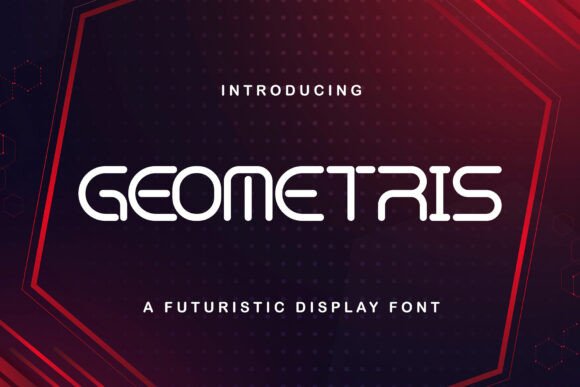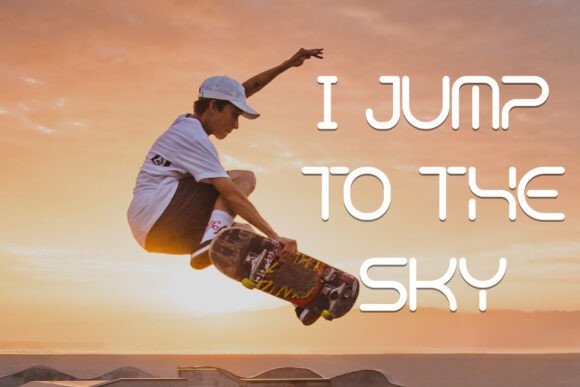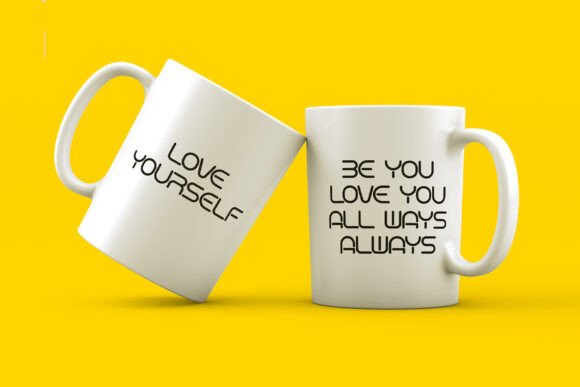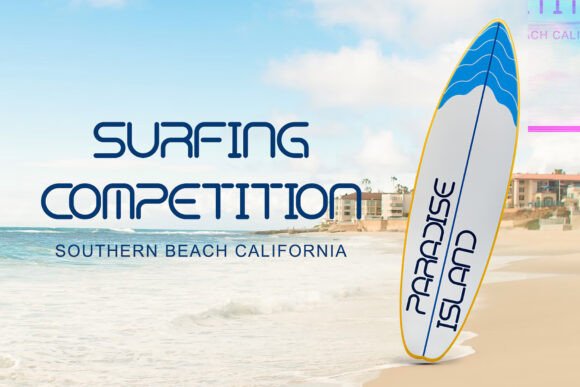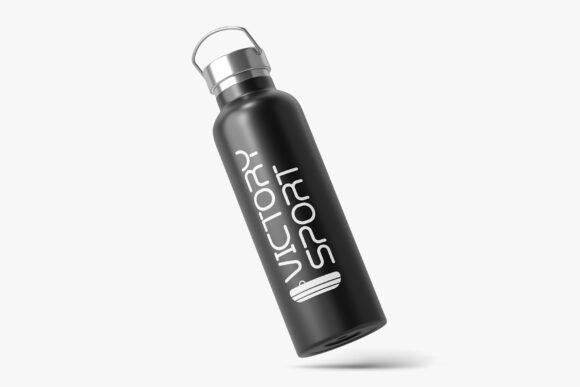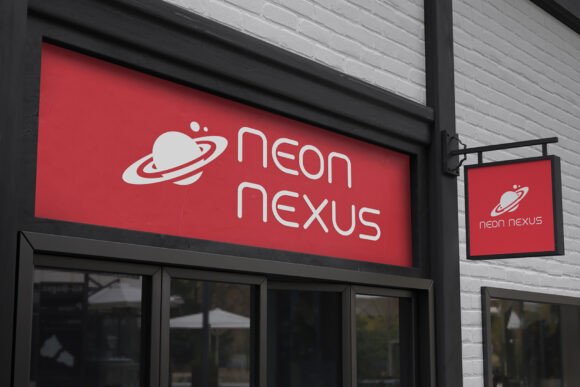
Introducing Geometris Font: The Ultimate Futuristic Typeface for Modern Design
In the realm of typography, fonts play a crucial role in shaping the visual identity of a brand, product, or service. With the ever-evolving landscape of design, it’s essential to stay ahead of the curve with fresh and innovative typefaces. Geometris font is a revolutionary, cutting-edge font that embodies the essence of sci-fi aesthetics, making it perfect for technology, gaming, space themes, and high-tech branding.
What is Geometris Font?
Geometris is a futuristic font that boasts smooth, geometric letterforms, exuding a sense of modernity and sophistication. Inspired by the sleek lines and minimalist curves of sci-fi designs, Geometris is engineered to convey a sense of innovation, forward-thinking, and high-tech expertise. Its unique design makes it an ideal choice for designers and crafters seeking to create a bold, futuristic visual statement.
Key Features of Geometris Font
- Smooth Geometric Letterforms: Geometris features sleek, geometric shapes that give it a distinctly futuristic feel.
- Sci-Fi Inspiration: The font’s design is inspired by the aesthetics of science fiction, making it perfect for projects that require a space-age or high-tech look.
- High-Tech Branding: Geometris is ideal for technology, gaming, and space-themed branding, helping to create a strong, modern visual identity.
- Versatility: The font’s clean and simple design makes it suitable for a wide range of applications, from digital media to print materials.
Use Cases for Geometris Font
Geometris font is versatile and can be applied to various design projects, including:
- Technology and Gaming: Use Geometris to create a futuristic and high-tech look for your tech or gaming brand, website, or marketing materials.
- Space Themes: Geometris is perfect for projects related to space exploration, astronomy, or science fiction, adding a touch of authenticity to your design.
- High-Tech Branding: Employ Geometris to develop a strong, modern visual identity for your high-tech brand, product, or service.
- Digital Media: Geometris font is suitable for digital media, including social media graphics, video game titles, and futuristic-looking websites.
Benefits of Using Geometris Font
By incorporating Geometris font into your design projects, you can:
- Stand Out: Geometris’s unique design helps your project stand out from the crowd, making it more noticeable and engaging.
- Convey Innovation: The font’s futuristic look effectively communicates a sense of innovation and forward-thinking, essential for technology and high-tech brands.
- Enhance Visual Identity: Geometris font can significantly enhance your brand’s visual identity, making it more modern, sleek, and sophisticated.
Tips for Using Geometris Font Effectively
To get the most out of Geometris font, consider the following tips:
- Pair with Neutral Backgrounds: Geometris font looks best when paired with neutral or dark backgrounds, allowing its futuristic design to take center stage.
- Experiment with Colors: Try Geometris with bold, bright colors to create a vibrant and eye-catching visual effect.
- Use in Headings and Titles: Geometris font is perfect for headings and titles, adding a touch of futurism to your design.
Geometris font is a game-changing typeface that brings a touch of futurism to your design projects. Its smooth, geometric letterforms and sci-fi inspiration make it an ideal choice for technology, gaming, space themes, and high-tech branding. With its versatility, unique design, and ability to convey innovation, Geometris font is sure to elevate your visual identity and make your project stand out in a crowded design landscape.